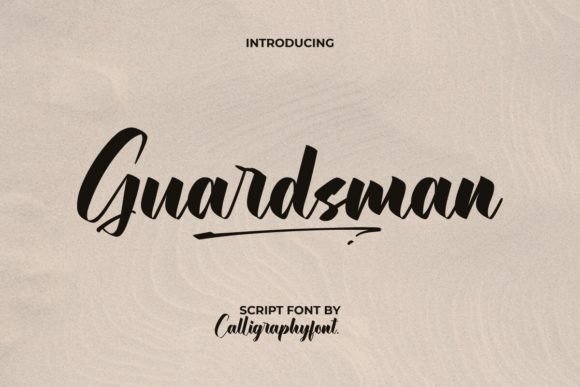
Introducing Guardsman Font, a classy calligraphy script that embodies elegance and sophistication. Its bold and stylish appearance adds a touch of luxury to any design project. This timeless-looking font possesses a nostalgic charm that is sure to captivate your audience.
With Guardsman Font, you can elevate your brand logo, business cards, labels, packaging design, screen printing, stickers, website, and more. Its versatility makes it suitable for a wide range of projects, from formal invitations to eye-catching social media graphics.
This font's intricate letterforms and elegant curves exude a sense of timeless beauty. Its strong and striking presence ensures that your designs will leave a lasting impression. Whether you're looking to create elegant invitations, stylish branding materials, or captivating website headers, Guardsman Font has you covered.
Transform your designs into works of art with Guardsman Font. Its luxurious appeal and nostalgic character will add a touch of distinction to your creative projects. Make a statement and stand out from the crowd with this captivating script font.